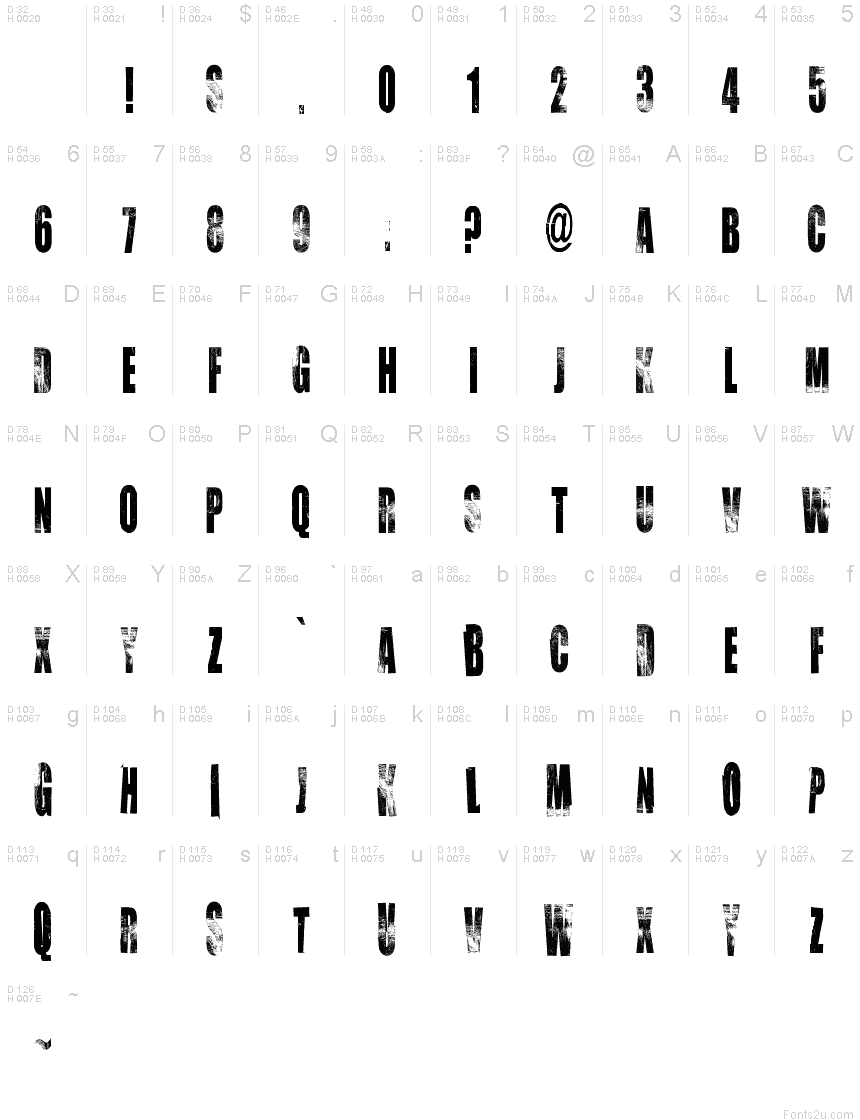
VTKS CHOICE by Douglas Vitkauskas is a free eroded display font built from tall, forceful capitals. Dense scratches and worn patches break through the broad strokes, giving the lettering the look of distressed ink or weathered paint.
It can create a battered title treatment for music posters, action game graphics, and streetwear branding, where its damaged surface supports an abrasive theme. On merchandise, the letters can become part of the artwork, resembling ink from a worn screen print.